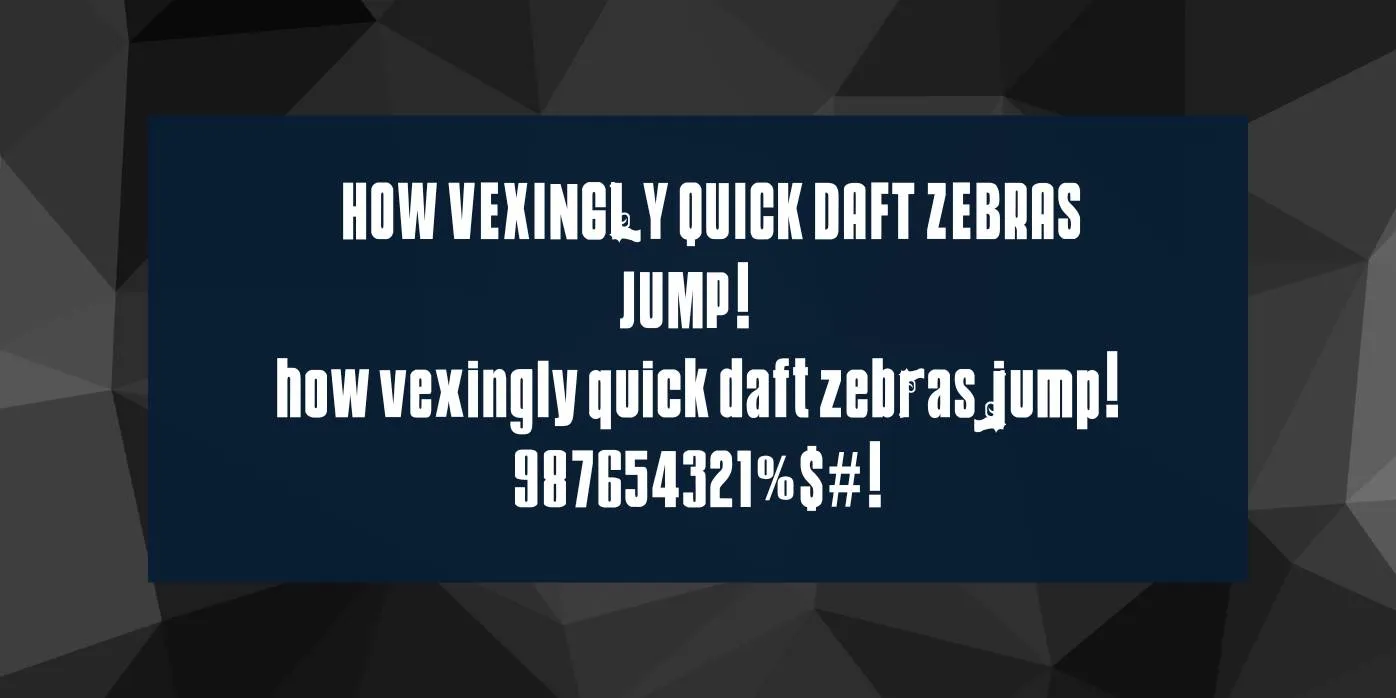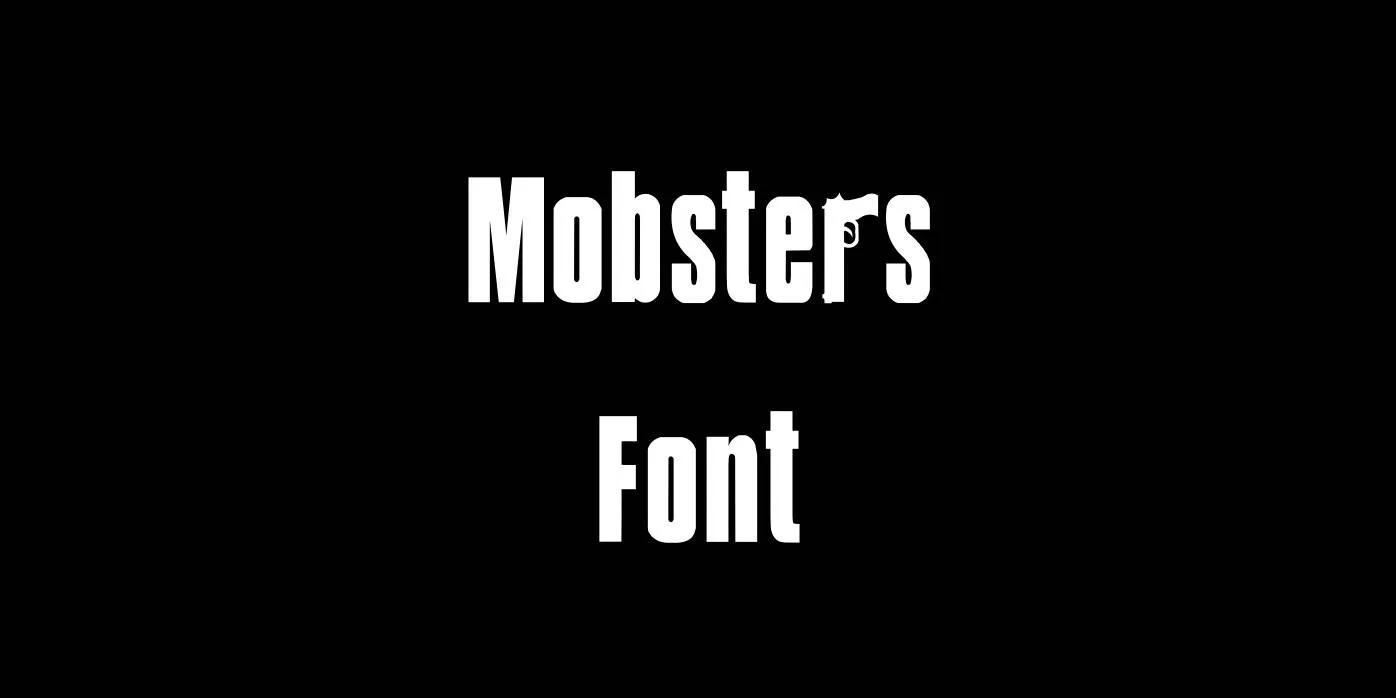
Mobsters Font
Sharkshock designed the Mobsters Font. This typeface has very unique characters that includes uppercases, lowercases, glyphs, punctuations, numerlas and numbers. This is a fancy typeface with attractive bold and simple look. You can easily download this font zip file from this website.